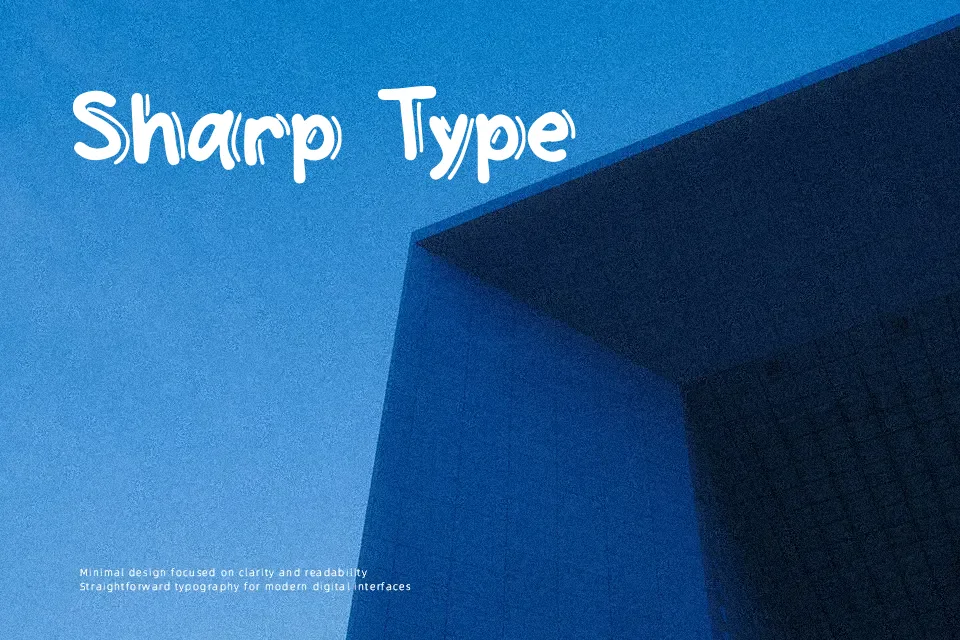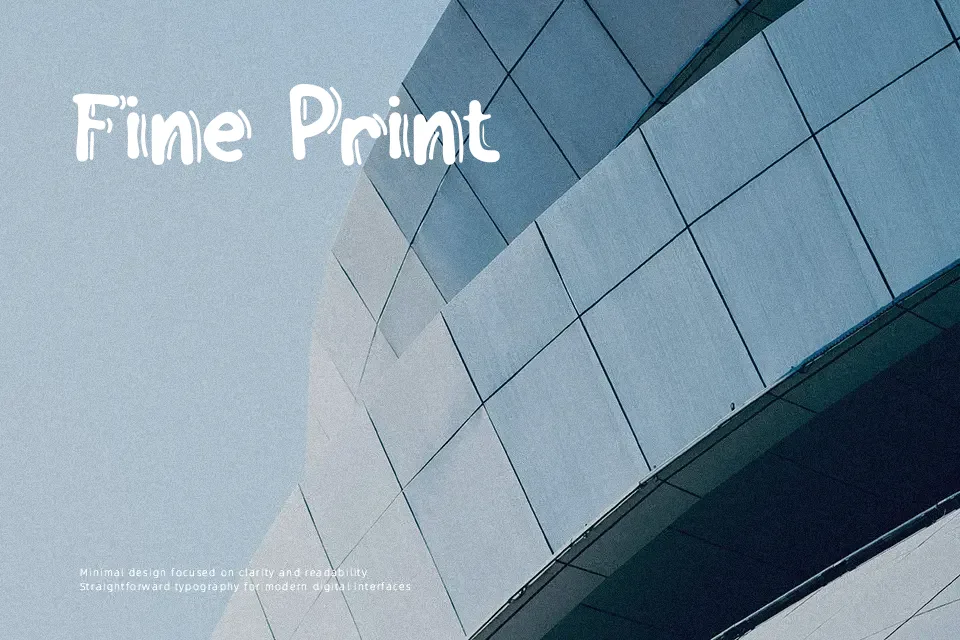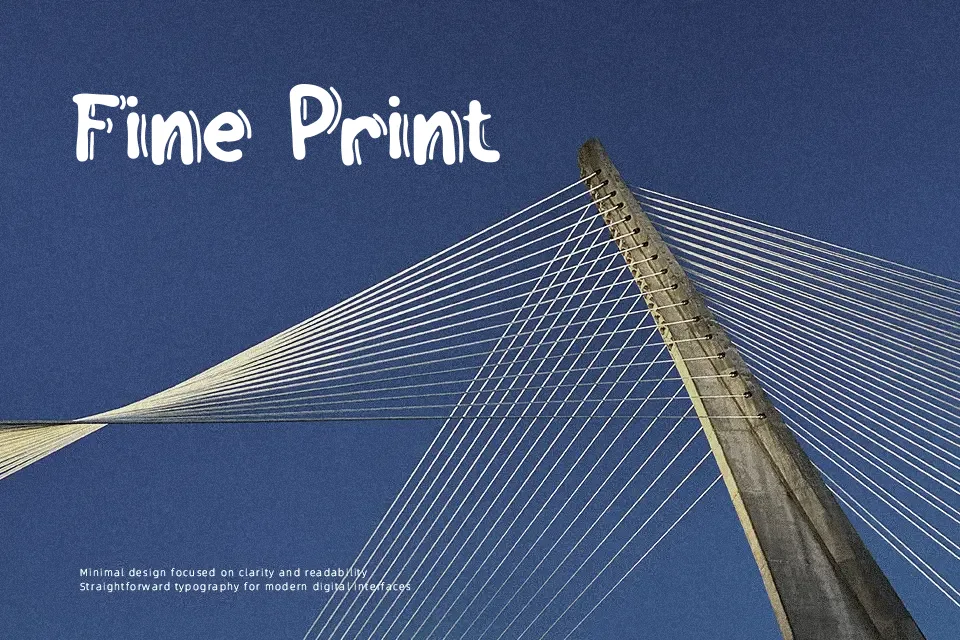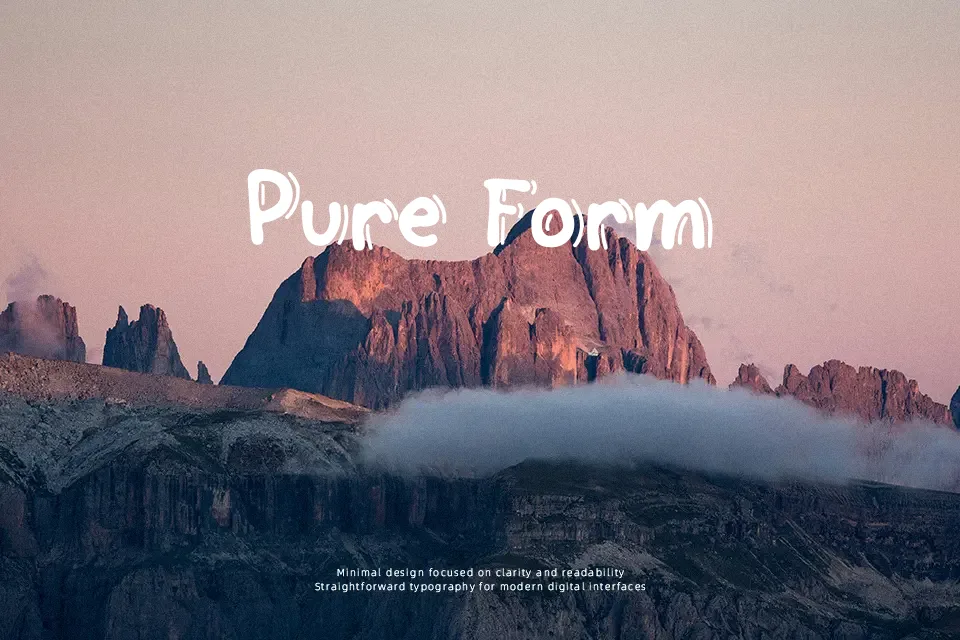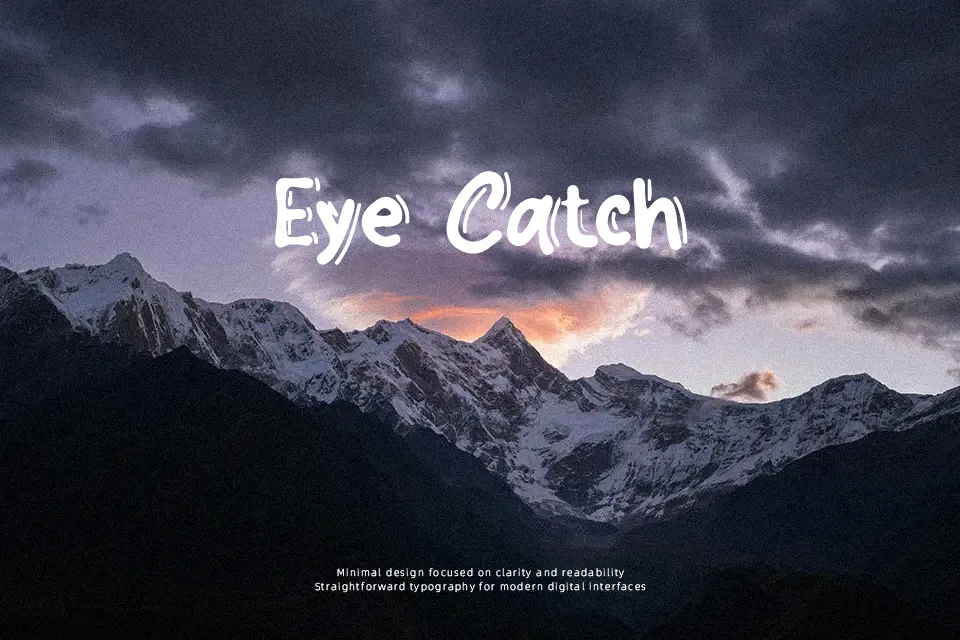
Softeraphy Font
Designed by NoFeeling™ Studio
Softeraphy Font is a rounded cartoon display typeface characterized by heavy weight, bulbous contours, and smooth terminals. The letterforms exhibit minimal stroke contrast with tight internal counters and relaxed external spacing, creating a buoyant visual rhythm across short text arrangements. While the substantial stroke thickness ensures prominent visibility on event posters, packaging, and digital banners, dense forms make continuous paragraph reading challenging. Extended body copy quickly loses clarity due to the compact apertures. The typeface excels in expressive, large-scale applications where high-contrast warmth and friendly character definition take precedence over tight editorial efficiency.
Best For: children book titles, animated video graphics, toy packaging labels, casual event posters
Not Ideal For: long body text, corporate annual reports, mobile UI microcopy, technical documentation
Perfect for branding, headline, and kids, with a bubble and cartoon style.